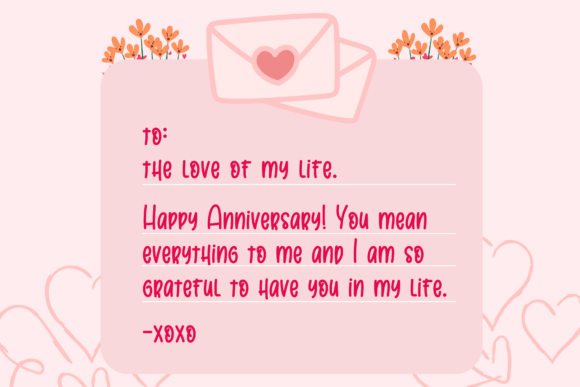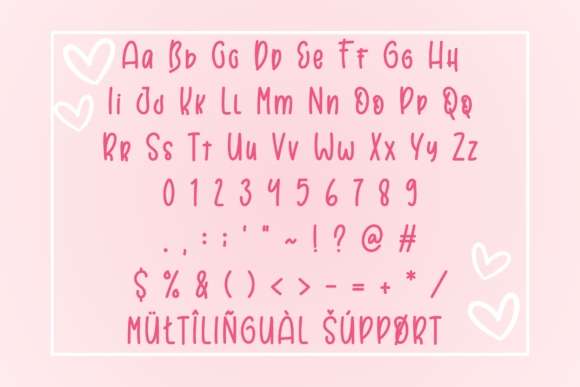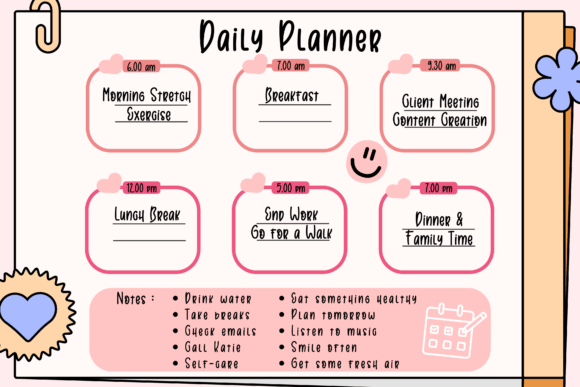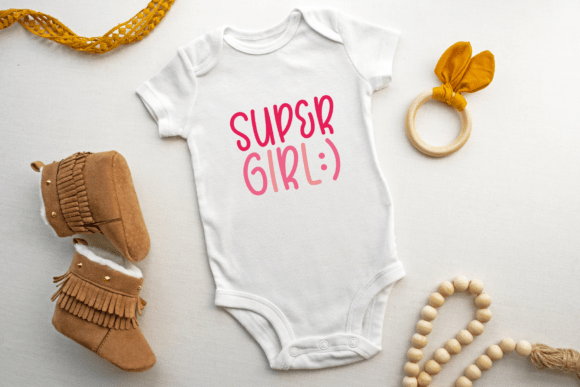
The Sweet Spot: Discovering the Brownie Flake Font
I’ll never forget the time I was working on a digital planner project for a client, and I just couldn’t seem to find the perfect font. I had a vision of something friendly, approachable, and yet elegant enough to elevate the entire design. That’s when I stumbled upon the Brownie Flake font. It was like the clouds parted, and the perfect solution appeared. In this article, I’ll share my experience with this lovely font, its features, and how to make the most of it in your creative projects.
- ✅ Friendly and approachable: BrownieFlake has a warm, handwritten feel that’s perfect for social media, digital planning, and more.
- ✅ Versatile: This font includes uppercase and lowercase letters, numbers, basic punctuation, and international characters, making it suitable for a wide range of creative projects.
- ✅ Easy to read: The font has a clear, legible design that’s perfect for body text and headings.
- ⚠️ Limited formal support: As a handwritten font, BrownieFlake may not be the best choice for very formal or professional projects.
- ⚠️ May require adjustments for large text sizes: While the font looks great at smaller sizes, it may need some tweaking for larger text sizes to maintain its charm.
The Story Behind Brownie Flake
Brownie Flake was designed with the intention of creating a friendly, approachable font that’s perfect for everyday creative projects. The designer aimed to capture the warmth and playfulness of handwritten text, making it suitable for digital planners, social media, and more.
| Font Name | Brownie Flake Font |
| Author | IngingDigitalArt |
Q: What type of projects is Brownie Flake best suited for?
A: Brownie Flake is perfect for social media, digital planning, branding, decor crafts, invitations, and other creative projects that require a friendly and approachable font.
Q: Does Brownie Flake include international characters?
A: Yes, Brownie Flake includes international characters, making it suitable for projects that require support for multiple languages.